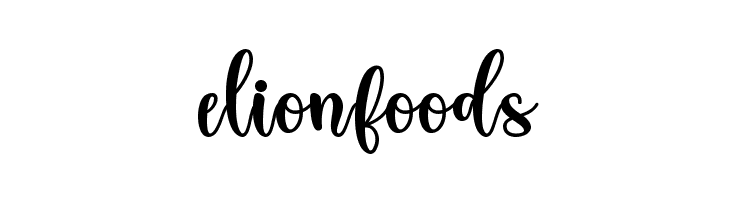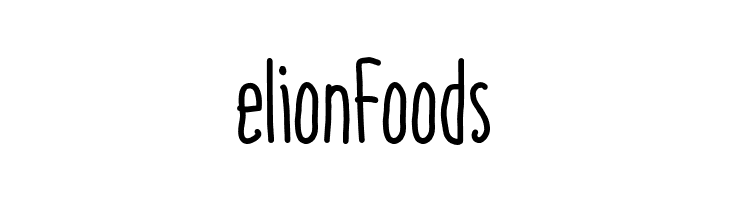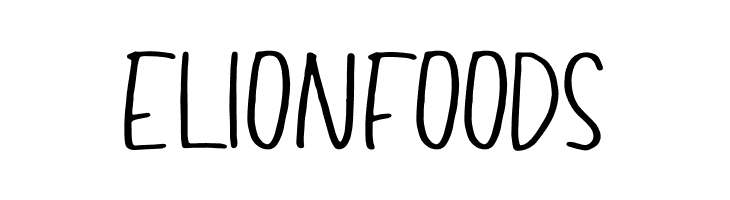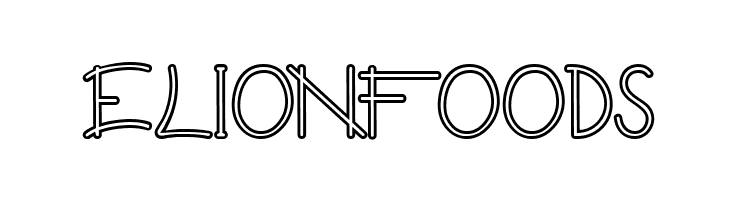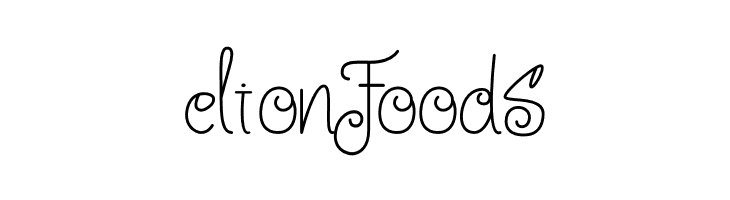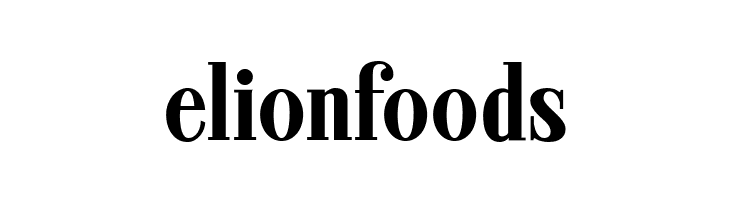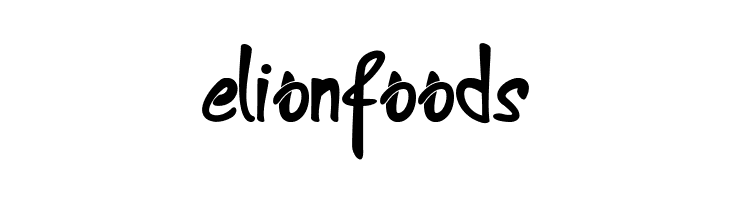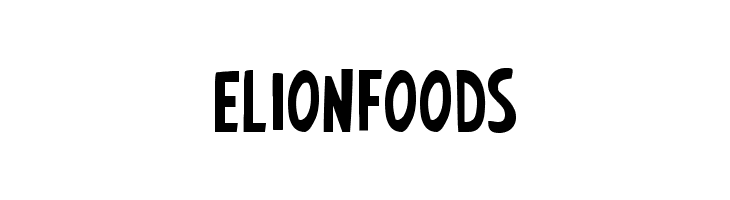
A festive, flowing script font perfect for holiday-themed designs.
A bold, brush-style font with dynamic, handwritten strokes.
A playful, hand-drawn font with tall, narrow letters and a uniform stroke width.
A playful, handwritten font with tall, narrow letters and a casual style.
A bold, distressed font with a grunge texture, ideal for edgy designs.
An artistic outline font with a playful, three-dimensional style.
A whimsical, curly font with decorative swirls and loops, perfect for creative projects.
A bold serif font with high contrast and dramatic strokes, perfect for impactful headlines.
A playful, casual handwritten font with smooth curves and expressive letterforms.
A bold, slightly condensed font with a playful yet assertive style.